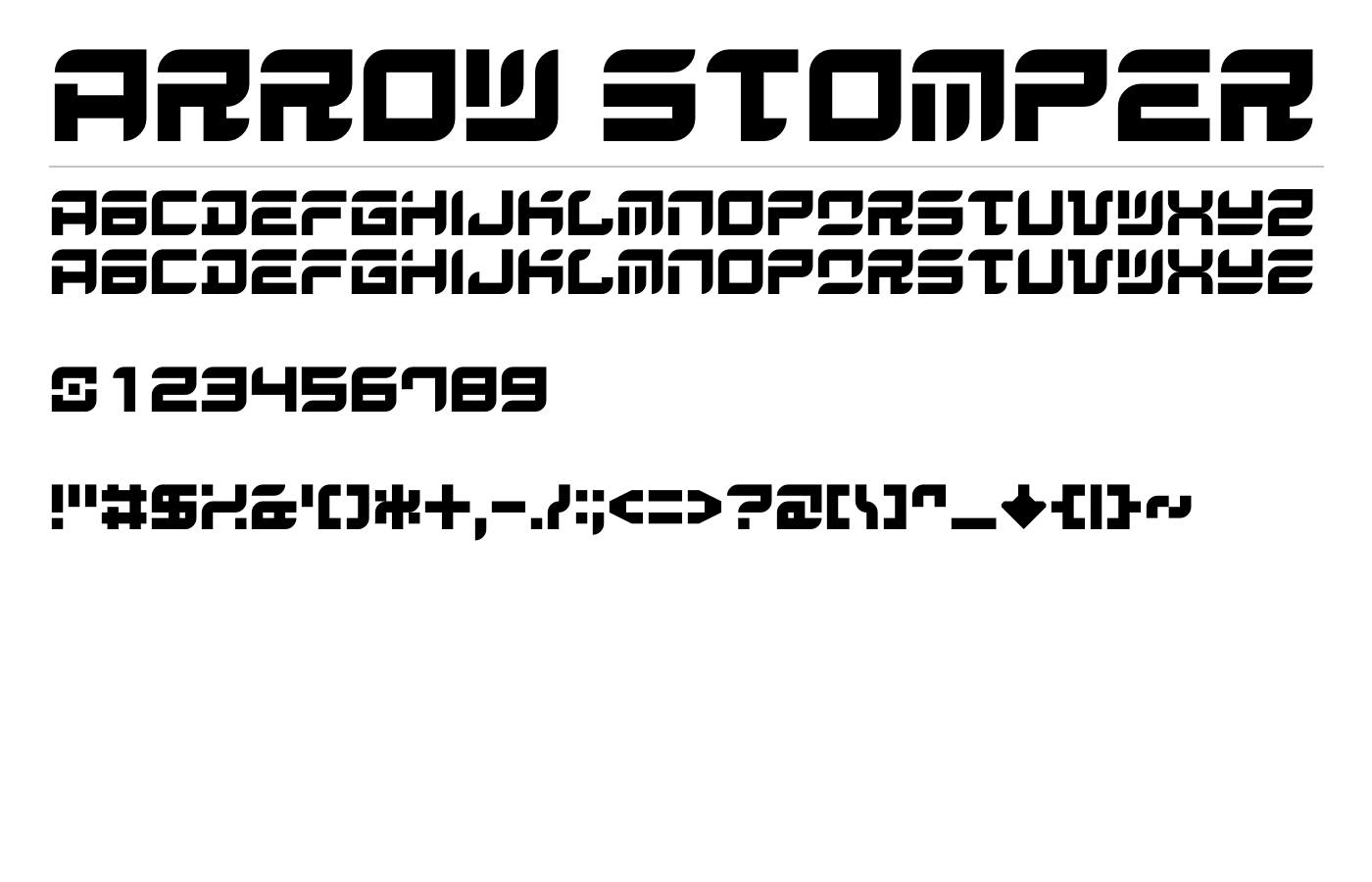
Arrow Stomper is a bold, futuristic sans-serif font characterized by its heavy weight and wide, blocky letterforms with a strong geometric influence. Its unique, stylized shapes and sharp corners give it a tech-inspired, modern feel, perfect for eye-catching headlines, logos, and branding that demands a bold, innovative presence. This font works well in creative digital designs and projects where a powerful, contemporary statement is needed.
Arrow Stomper Font
About Arrow Stomper Font